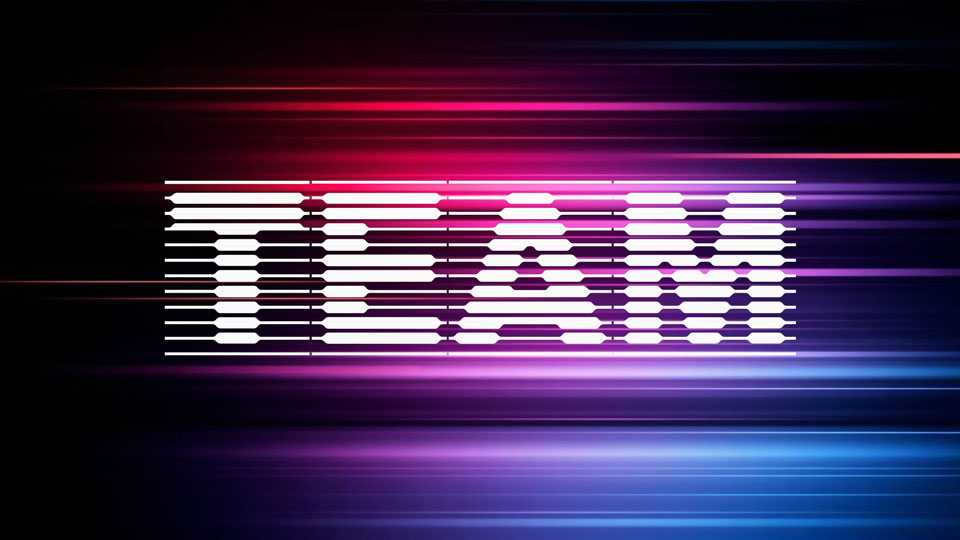
Download Team font, a dynamic and futuristic display typeface defined by its bold horizontal stripes and modular construction, inspired by digital motion, speed, and technology aesthetics.
Designer: Vasiliy Shishkin